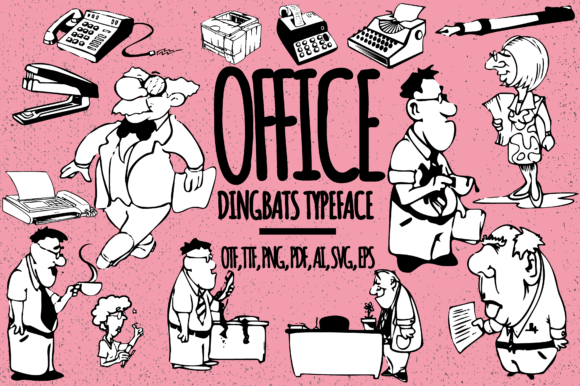
Behold, OFFICE Font - The Perfect Ally for Crisp CAD Drawings!
Unleash your creativity with OFFICE Font, a remarkable dingbats typeface designed to transform your CAD drawings into masterpieces. Immerse yourself in the world of technical precision, where every line and curve communicates your vision with clarity and impact.
OFFICE Font's meticulous design captures the essence of architectural and engineering excellence, empowering you to create blueprints, schematics, and diagrams that leave a lasting impression. Its 62 office-related doodles, accessible through capital and small letters as well as numbers, provide a versatile repertoire to enrich your designs.
Unleash your creativity and conquer the world of CAD with OFFICE Font. Its crisp lines, meticulous details, and intuitive character set make it the ultimate choice for professionals and enthusiasts alike. Elevate your projects to new heights of precision and clarity, and let your designs speak volumes.